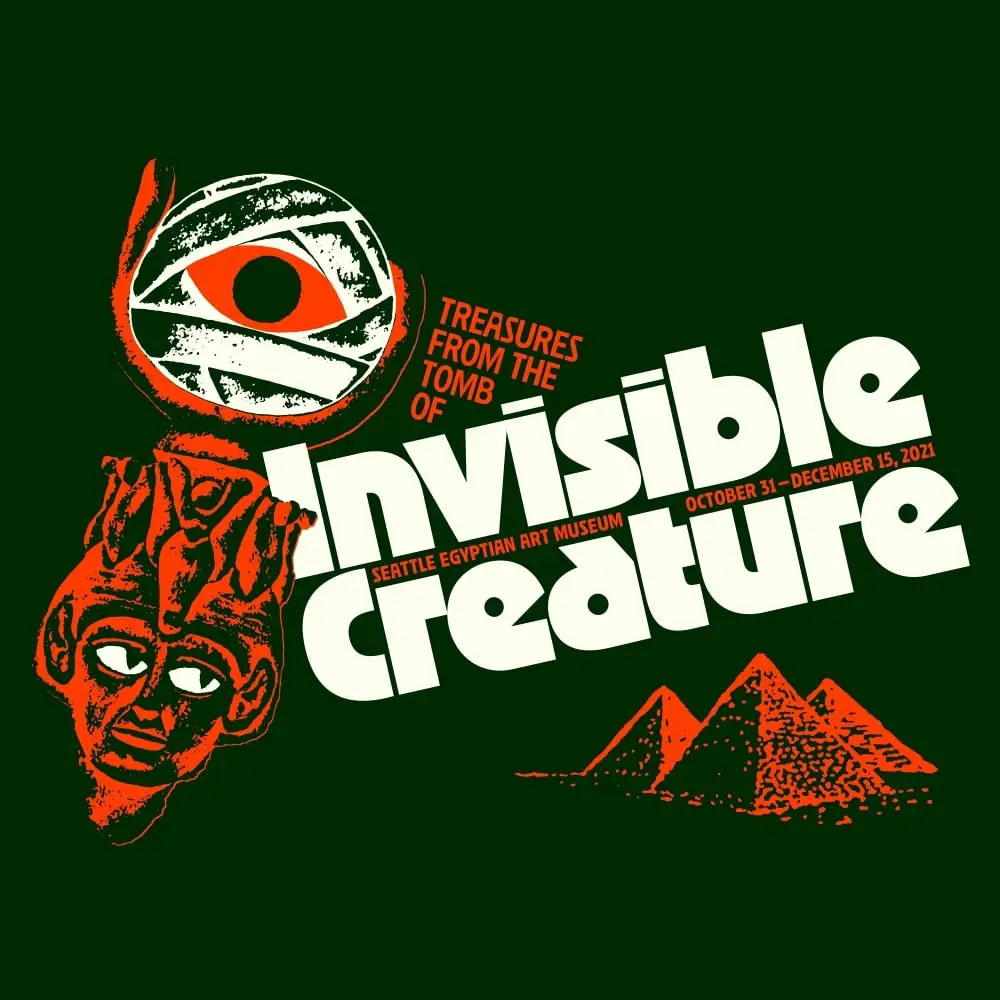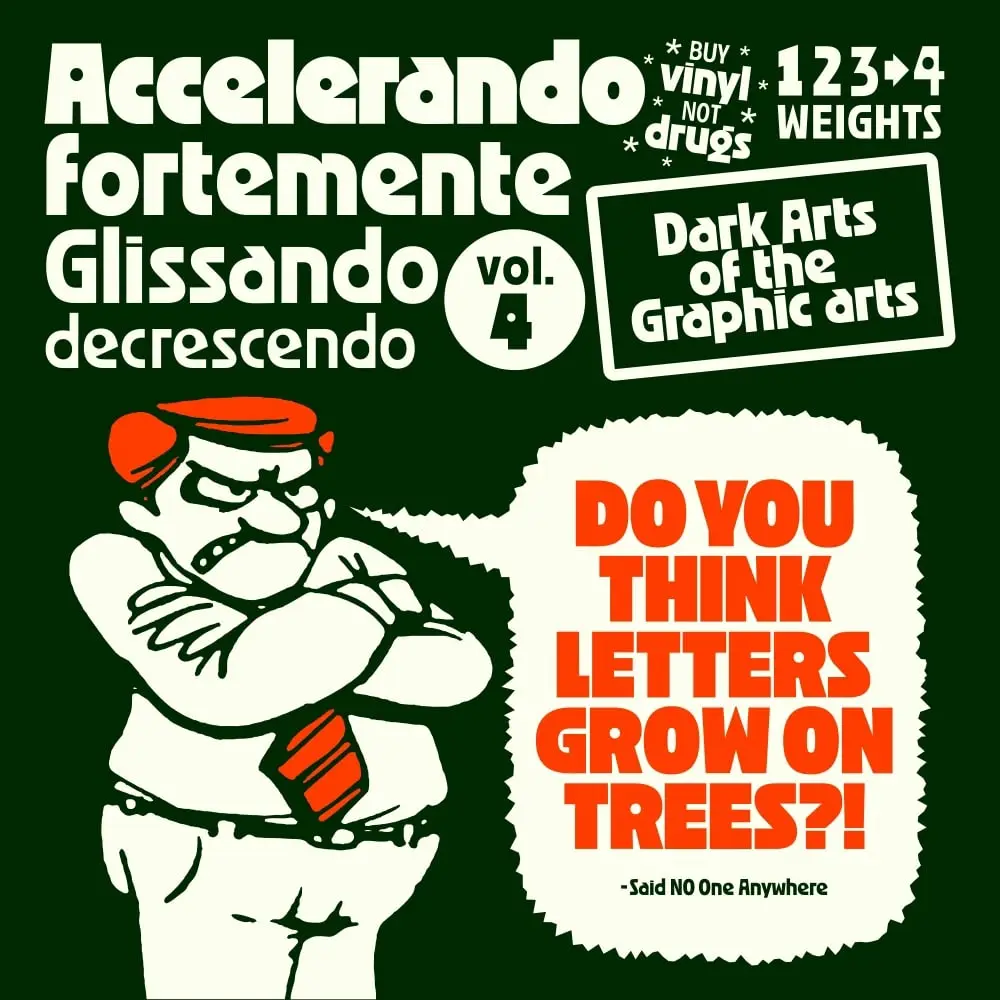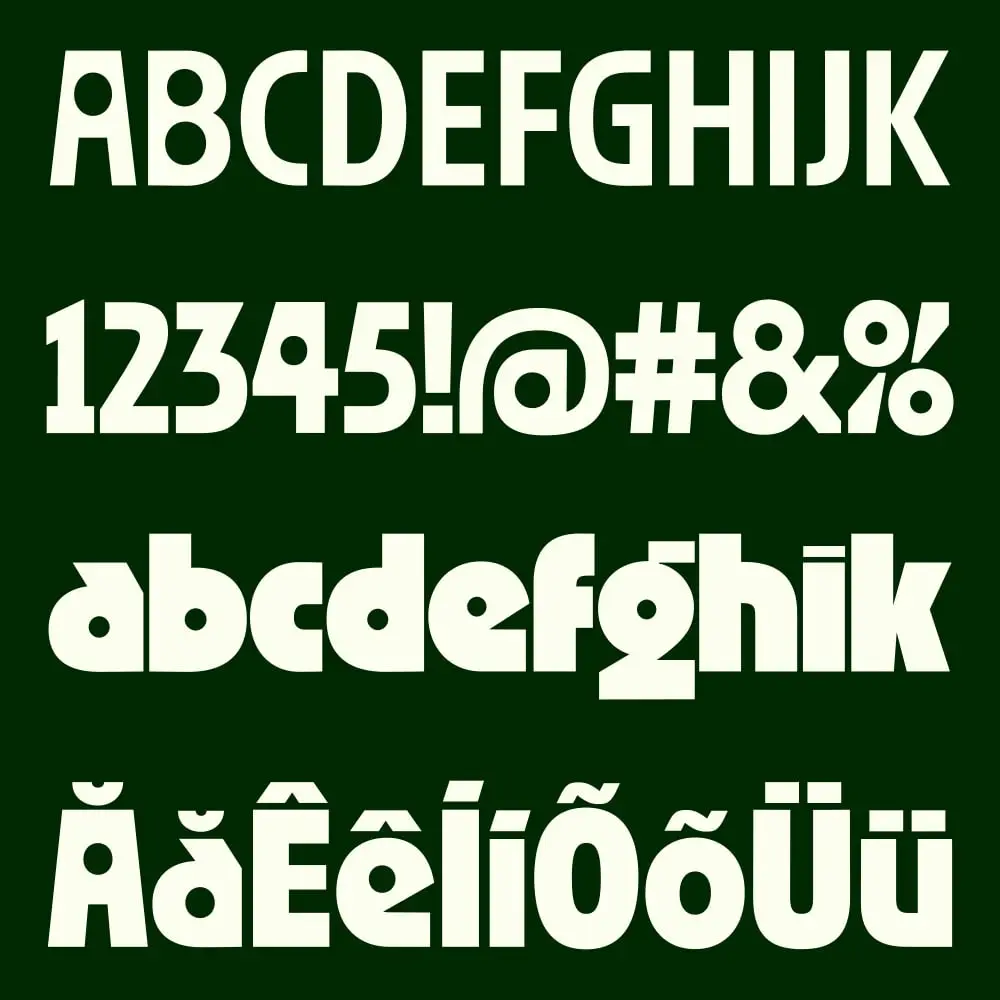
Ozik Font
The Ozik Font is a modern typeface designed to elevate your creative projects. With its unique blend of elegance and readability, this font is perfect for a variety of applications, from branding to web design.
• Weights: Light, Regular, Medium, Bold